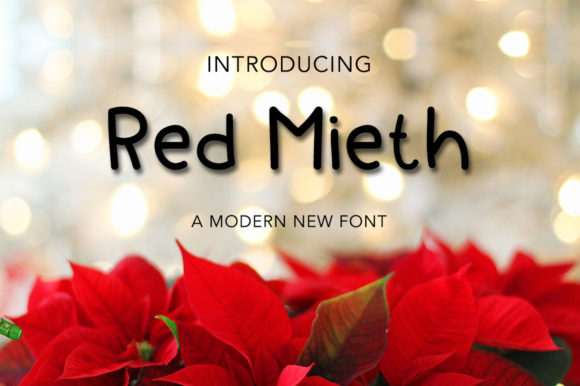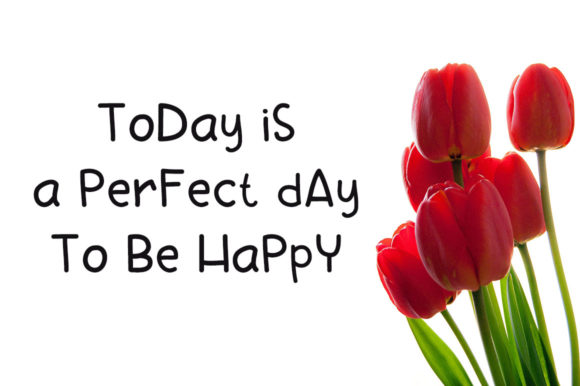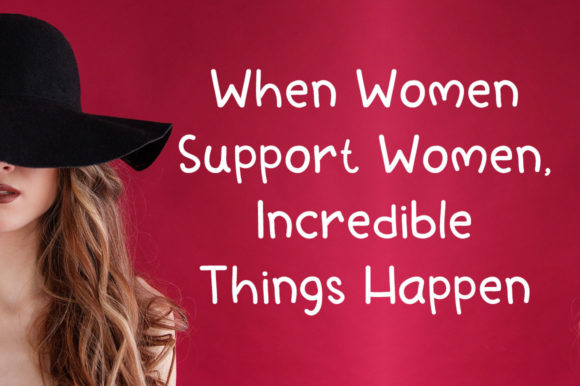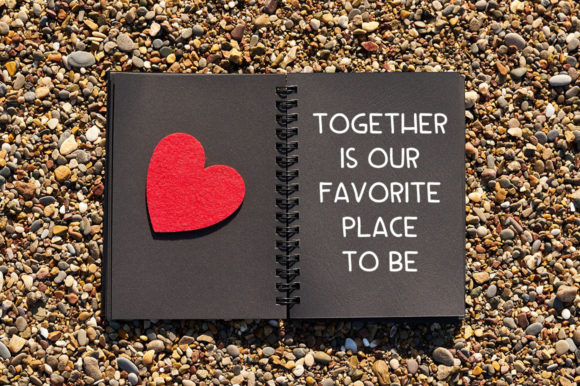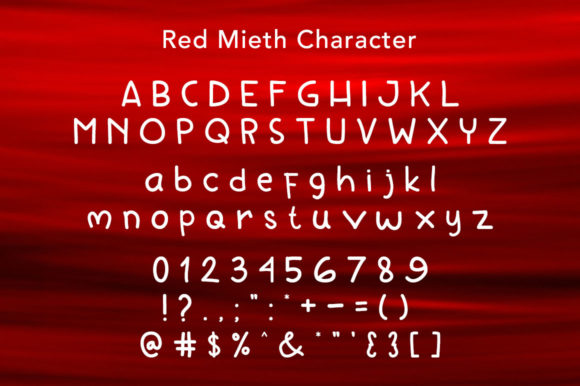
About Red Mieth Font
Red Mieth is a cute and casual handwritten font. It will look outstanding in any context, whether you’re looking for fonts for Instagram or calligraphy scripts for DIY projects, Red Mieth will turn any creative idea into a true piece of art!